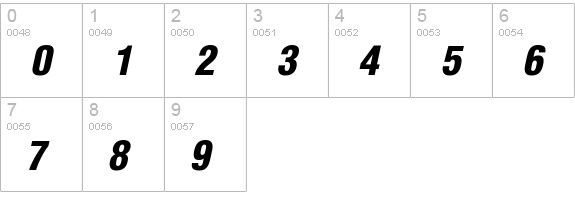
Context Black Condensed SSi Black Condensed Italic Font Details
Context Black Condensed SSi Black Condensed Italic is a maximum-weight, dramatic, condensed-width, italic variant in the Context typeface family \xE2\x80\x94 well suited to maximum-impact headlines, posters, and packaging.
Context Black Condensed SSi Black Condensed Italic font is a sleek and modern typeface designed for making a bold statement in your designs. Its condensed and italicized style adds a touch of sophistication and elegance to any project. The sharp, angular letterforms exude a sense of strength and power, making it ideal for headlines, titles, and branding materials. What makes this font even more appealing is that it is available for free download at FontsMarket.com. You can easily access this striking typeface and incorporate it into your work to create eye-catching visuals that leave a lasting impression. Whether you're designing a poster, logo, or website, Context Black Condensed SSi Black Condensed Italic font is sure to make your text stand out with its bold and impactful appearance. Unlock the potential of this font and elevate your designs with its unique style and flair.